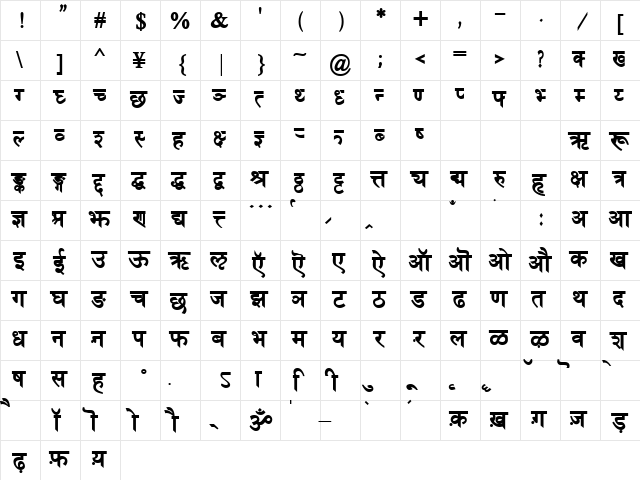
DevanagariDelhiSSK Bold
Design Context for DevanagariDelhiSSK Typeface
DevanagariDelhiSSK is a composed and adaptable typeface that performs quietly and consistently across a wide range of design contexts. Its bold stroke weight gives it real presence on the page.